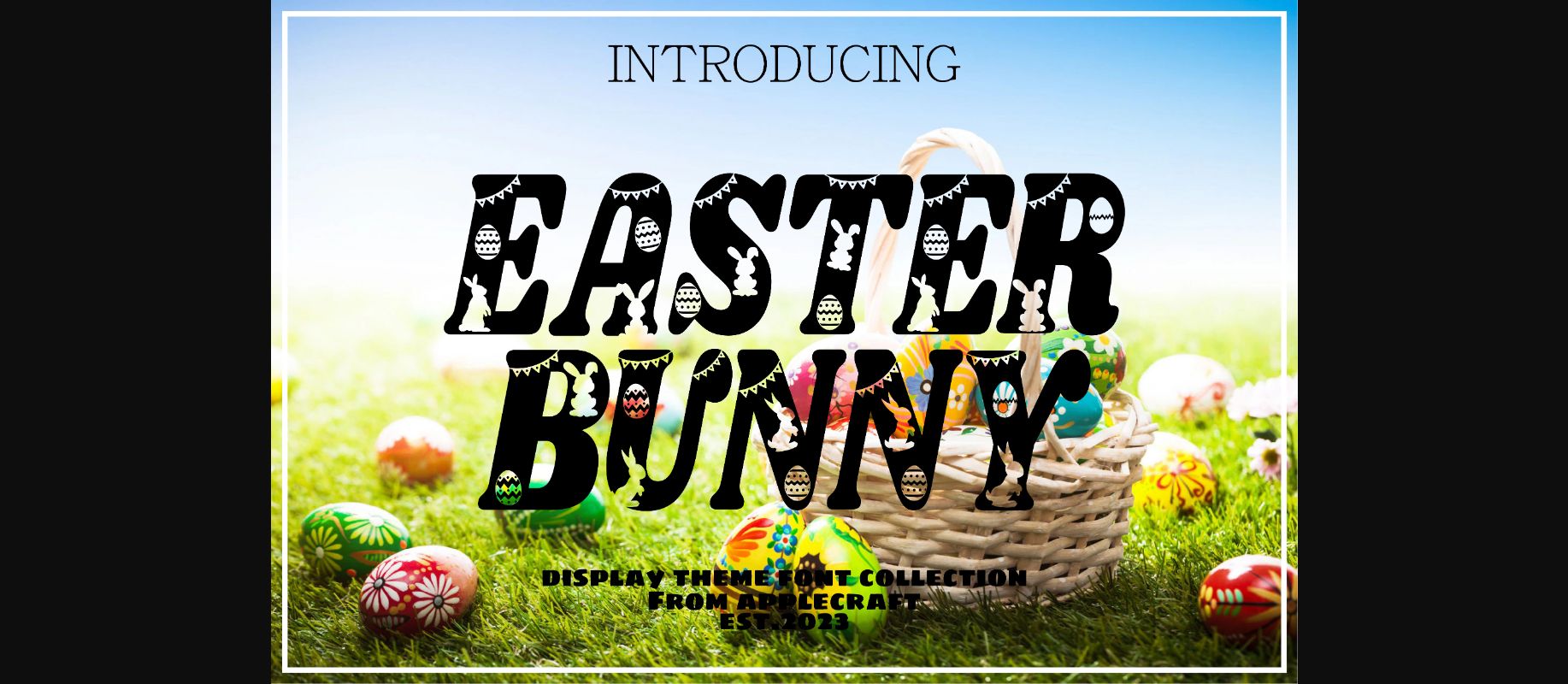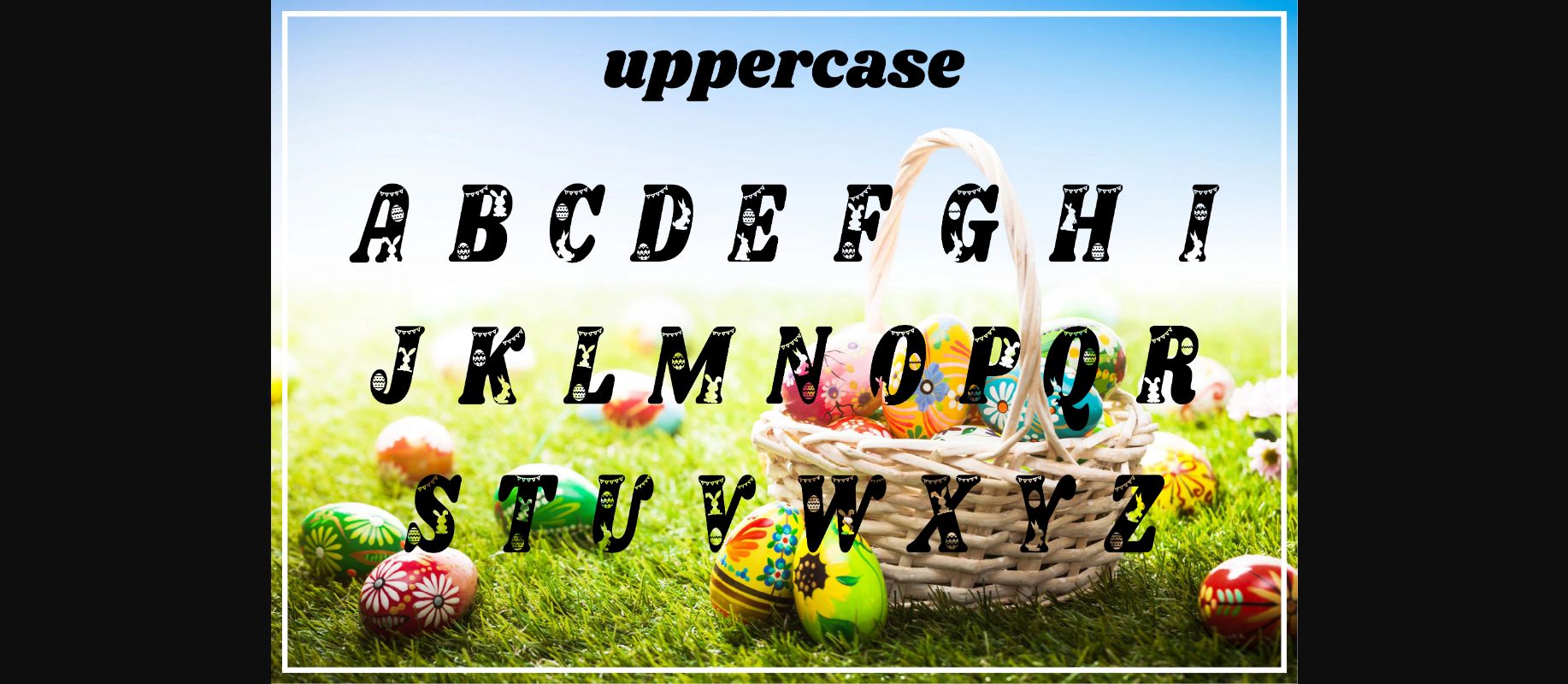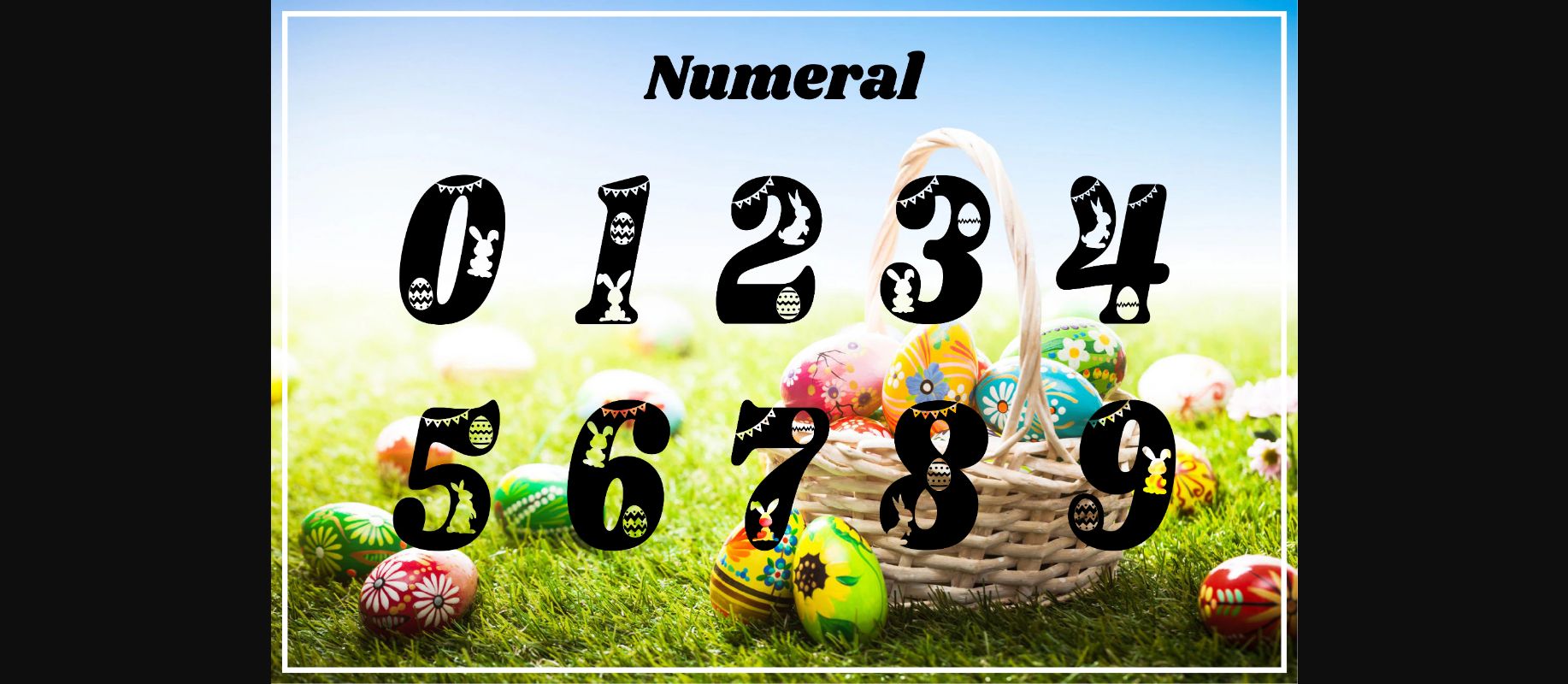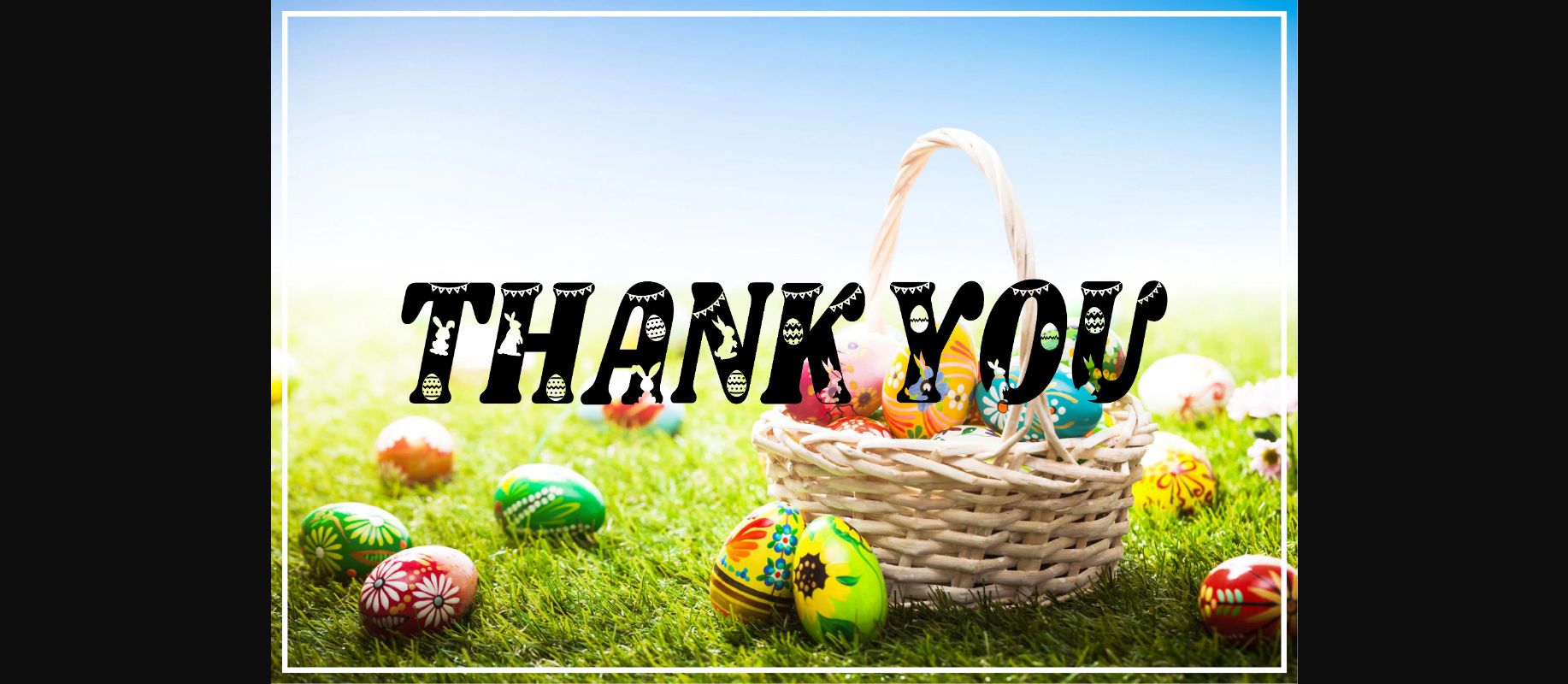
HomeDecorative FontsEaster Bunny Font Decorative Fonts Easter Bunny Font FacebookXPinterestWhatsApp 1 of 6 ... Easter Bunny Font Poster 2... Easter Bunny Font Poster 3... Easter Bunny Font Poster 4... Easter Bunny Font Poster 5... Easter Bunny Font Poster 6... About Easter Bunny Font Easter Bunny is an attractive and dramatic decorative font. It is perfectly suitable for any design or crafty idea! Add it confidently to your projects, and you will love the results! DOWNLOAD NOW People also explored Sahitna Font Hollybear Font Lotcops Font Digterra Font Everybody Font Summery Font Pimjai Oo Font Lancelot Font Twicy Font 286 0 TagsEaster Bunny Font Previous articleVintage Monograms E FontNext articleSuperstar Font LEAVE A REPLY Cancel reply Comment: Please enter your comment! Name:* Please enter your name here Email:* You have entered an incorrect email address! Please enter your email address here Website: Save my name, email, and website in this browser for the next time I comment. Personal Use Free Kellana Personal Use Free Read more about this font Bethania Personal Use Free Read more about this font Braindly Personal Use Free Read more about this font Kumadinya Personal Use Free Read more about this font BLOG How to Install and Use Fonts on Windows, macOS, and Web Projects How to Install and Use Fonts on Windows, macOS, and Web Projects Fonts are a crucial part of design and branding. Whether you’re designing a... Free vs Paid Fonts: Why Investing in Premium Fonts Is Worth It Exploring Font Trends Free Fonts Risk: Why Free Fonts Can Be Dangerous for Designers